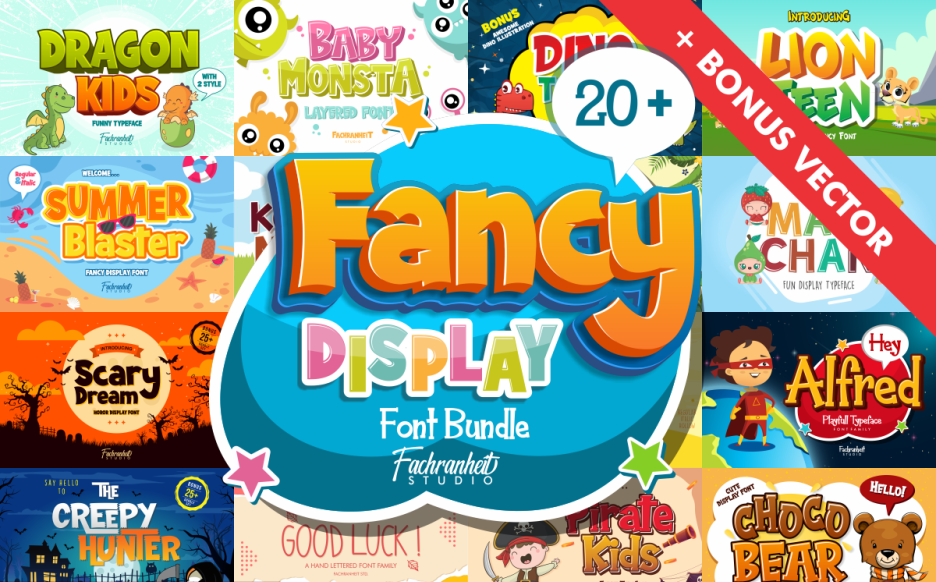
Fancy Display Font Bundle
Elevate your design projects with the Fancy Display Font Bundle. This collection features a variety of unique and stylish display fonts, perfect for making a statement in any design.
• Multiple font styles including serif, sans-serif, and decorative options
• Various weights to suit different design needs
Each font in this bundle is crafted with attention to detail, ensuring readability and aesthetic appeal. Ideal for headlines, logos, posters, and more.
• Combine different styles for a creative look
• Utilize in branding projects to create a memorable identity
• Perfect for both web and print applications